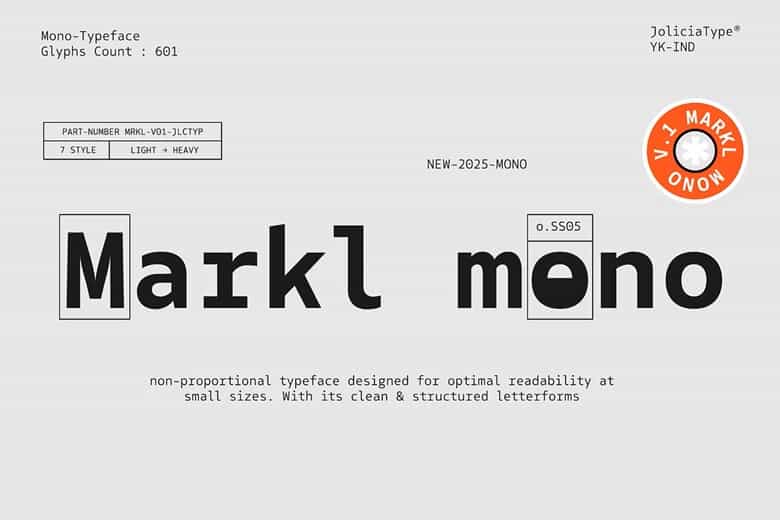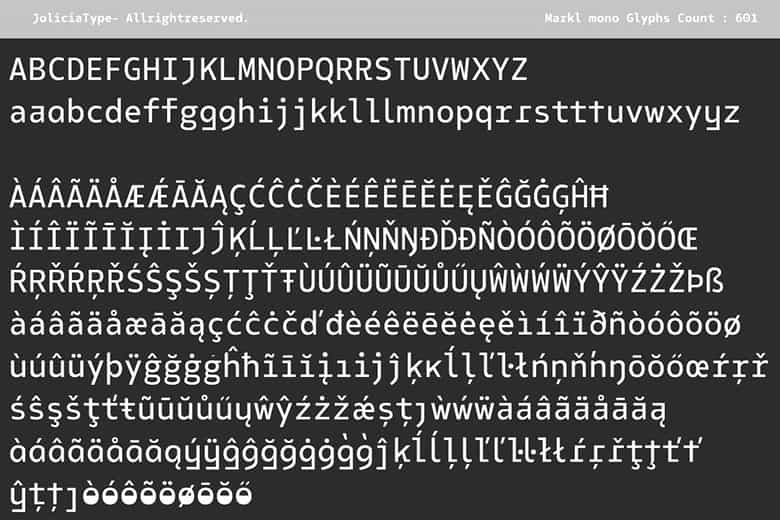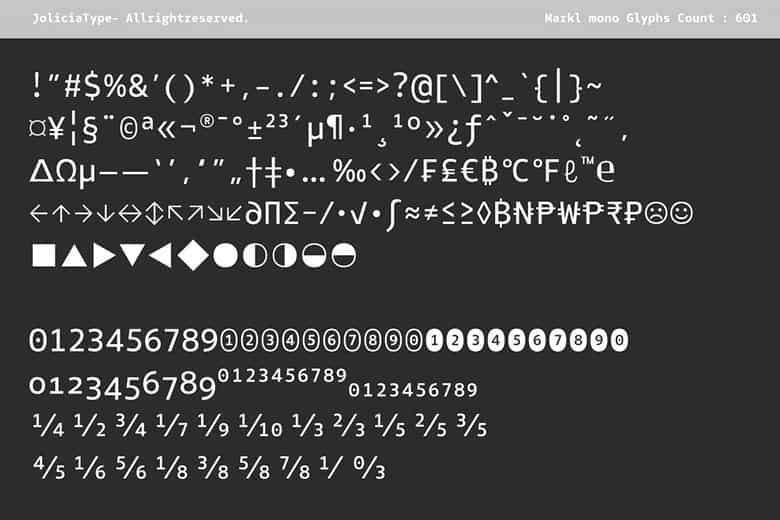
Markl Mono is a monoline, non-proportional type family designed especially for coding and technical documentation. This typeface comes in a group of seven weights of increasing density from Light to Heavy and optimized for small size usage. Full complement of 601 glyphs includes the Markl Mono and additional characters of R, a, f, g, j, k, l, r, t, y, o are provided for the expanded designing of themes.